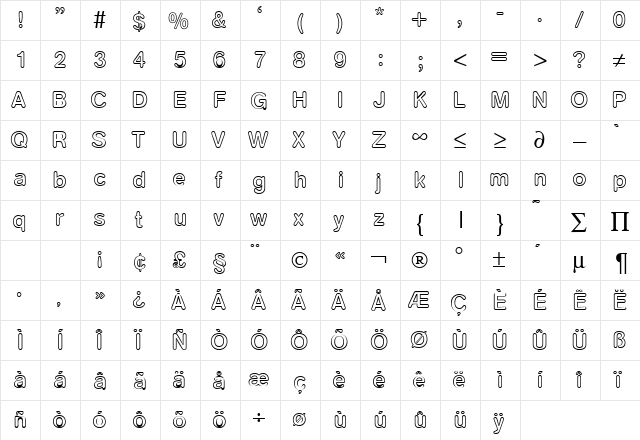
AkzentRoundedOutMedium Regular Font Preview
AkzentRoundedOutMedium Regular
Design Context for AkzentRoundedOutMedium Typeface
AkzentRoundedOutMedium softens its letterforms with rounded terminals, giving it an approachable, friendly quality that works well in consumer-facing and digital contexts.
A natural fit for tech startups, health and wellness brands, children's products, and friendly consumer apps.
Font Pairing: Pairs well with a rounded or humanist sans for body copy, maintaining the friendly tone without relying on AkzentRoundedOutMedium to carry extended reading.
Pro Tip: Pair AkzentRoundedOutMedium with a geometric sans for a balanced system — the rounded softness works as a warm counterpoint to harder-edged companions.